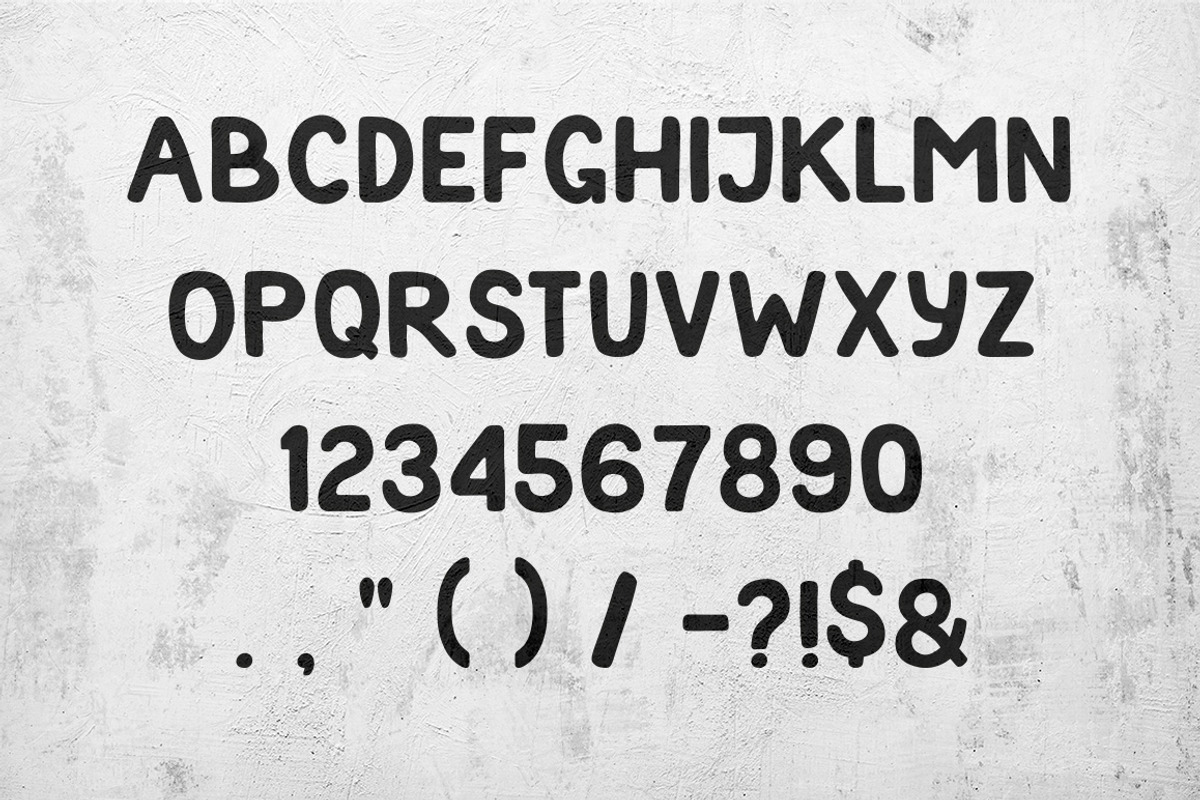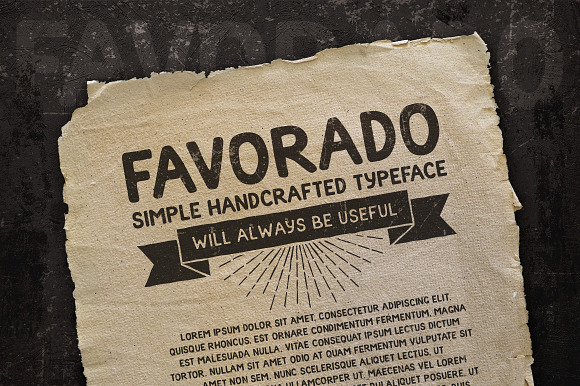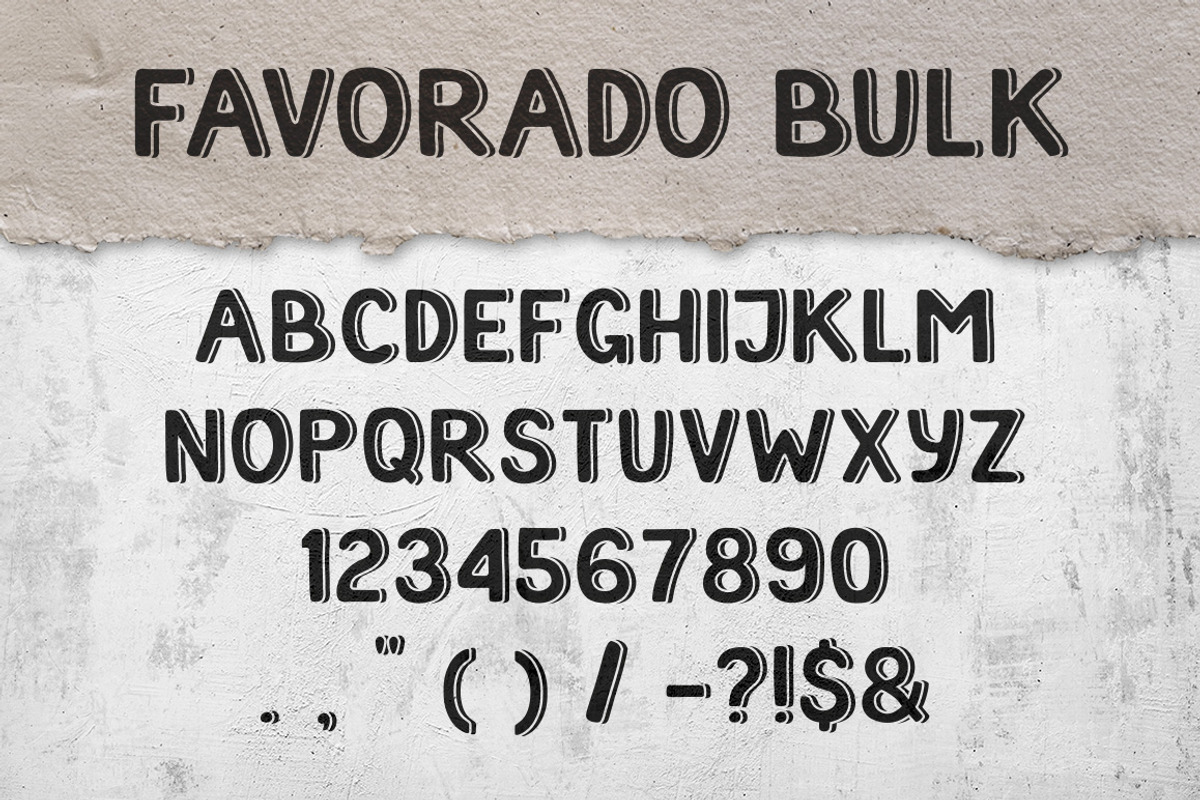
Favorado typeface
Amazing hand-crafted, sans-serif OTF font. Only uppercase. Suitable for any design, especially for headings.
Included 2 styles: Regular and Bulk
Why Favorado typeface is worth a look
Favorado typeface by Agor2012 shop fits naturally into Branding, posters, packaging, typography.